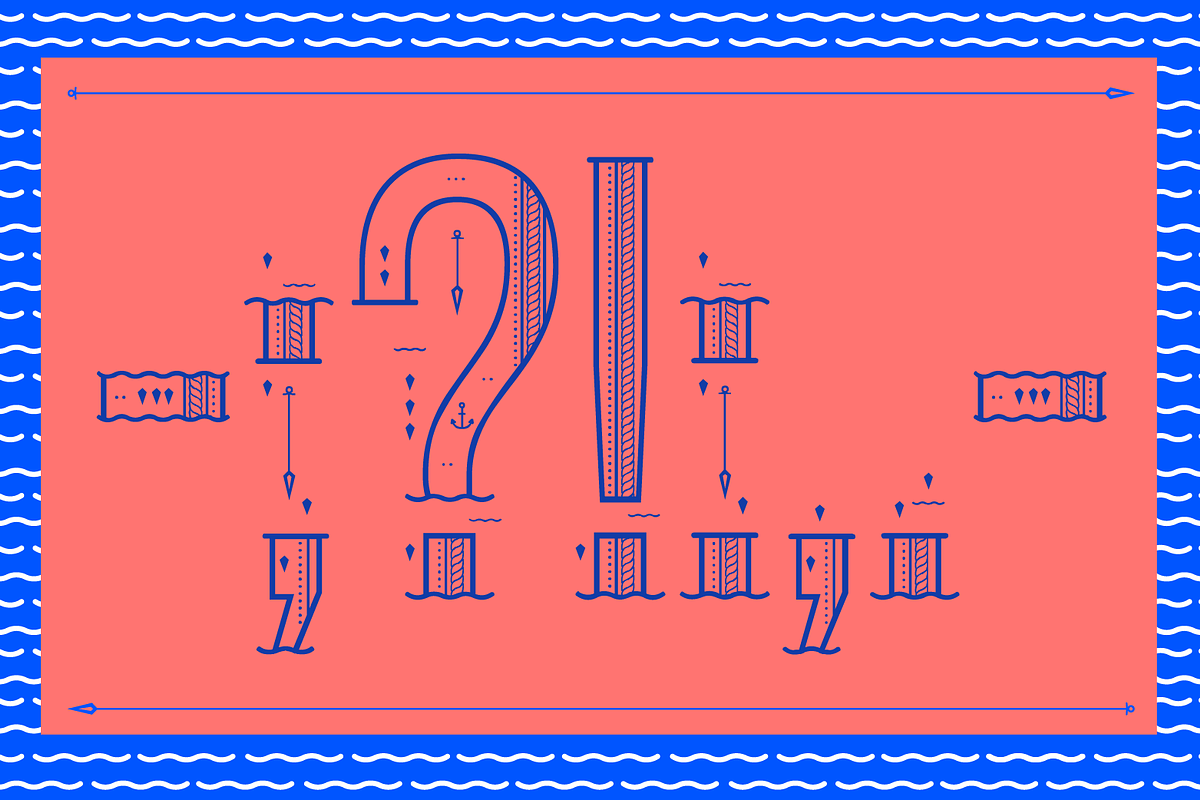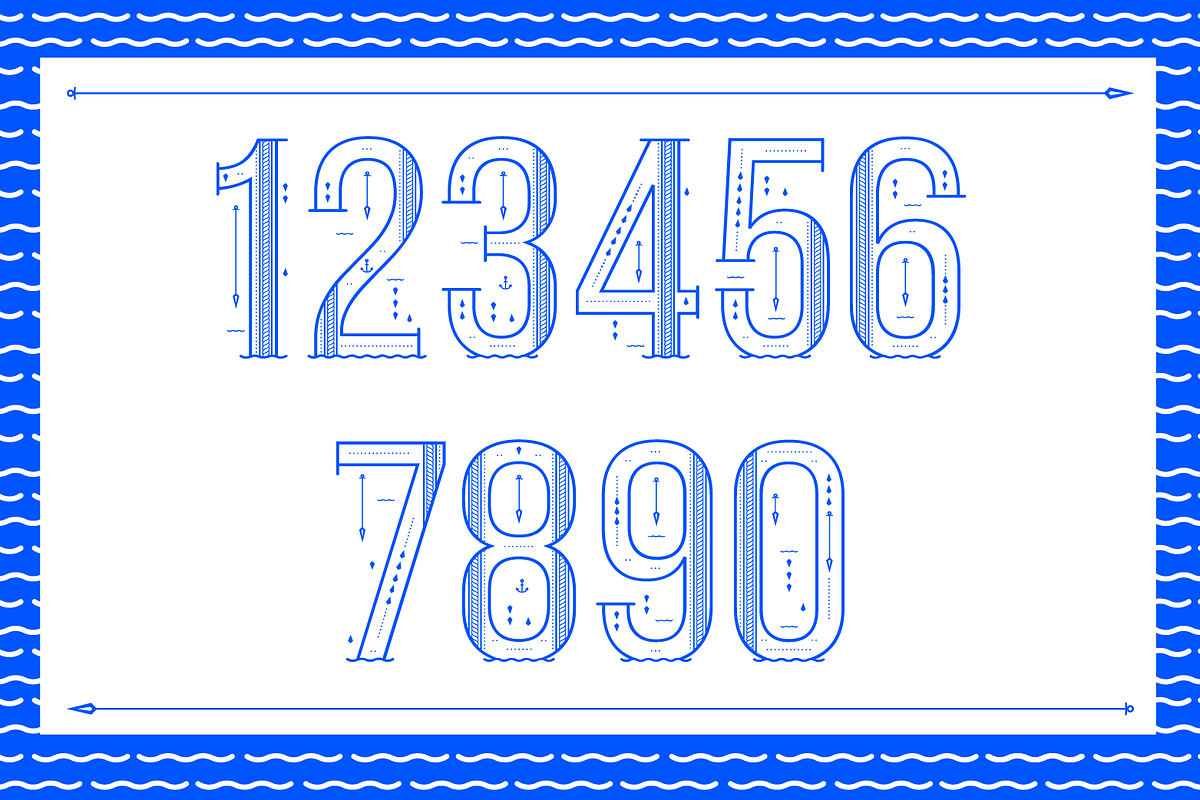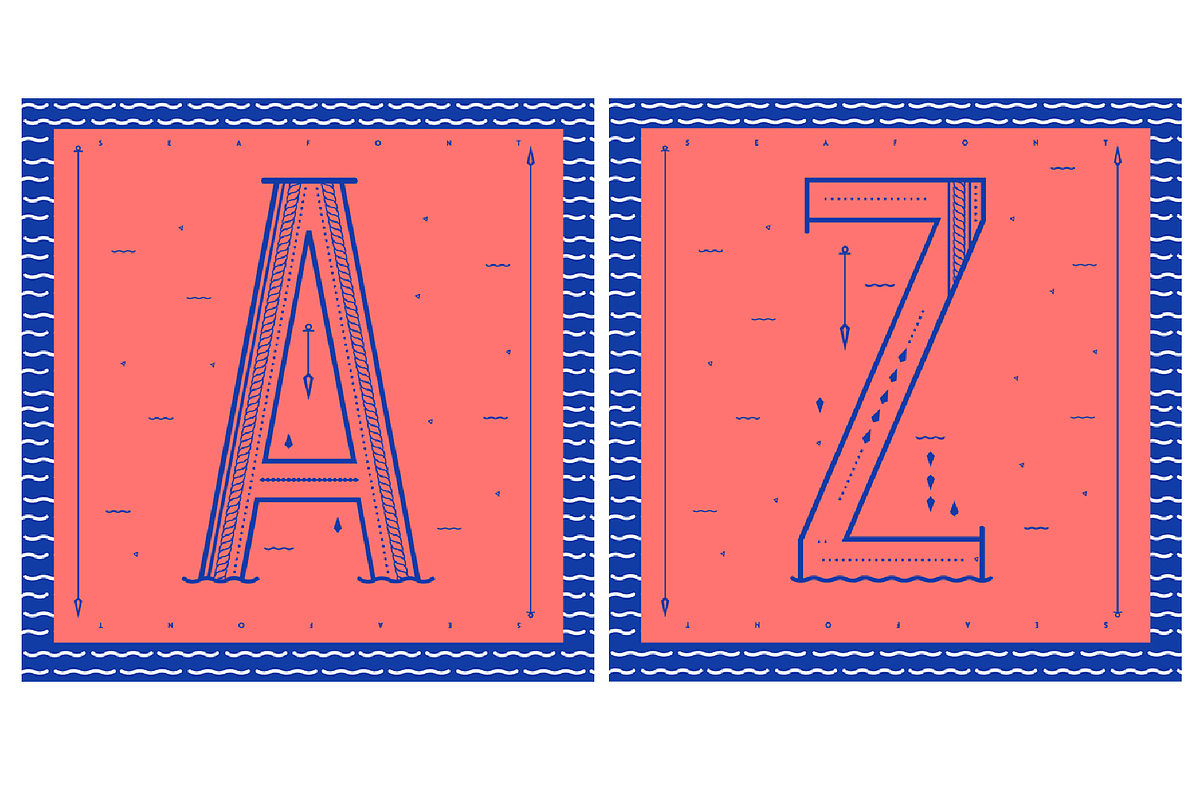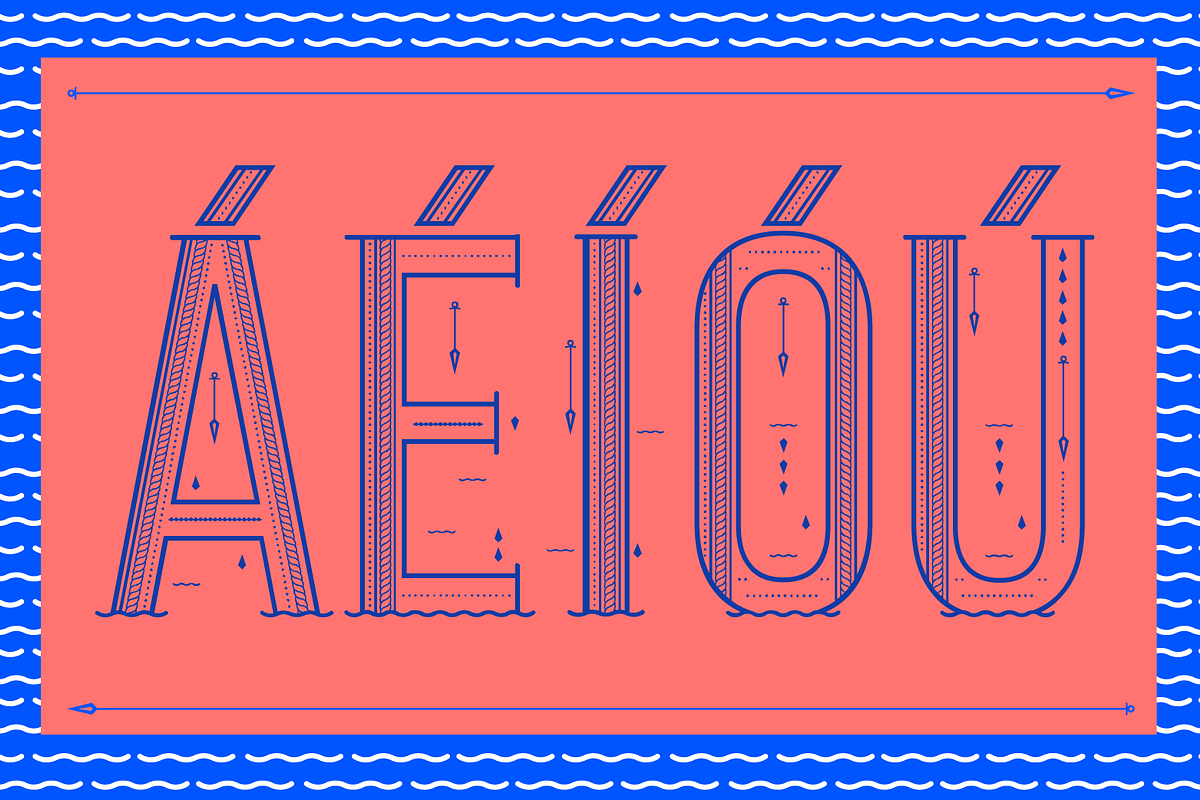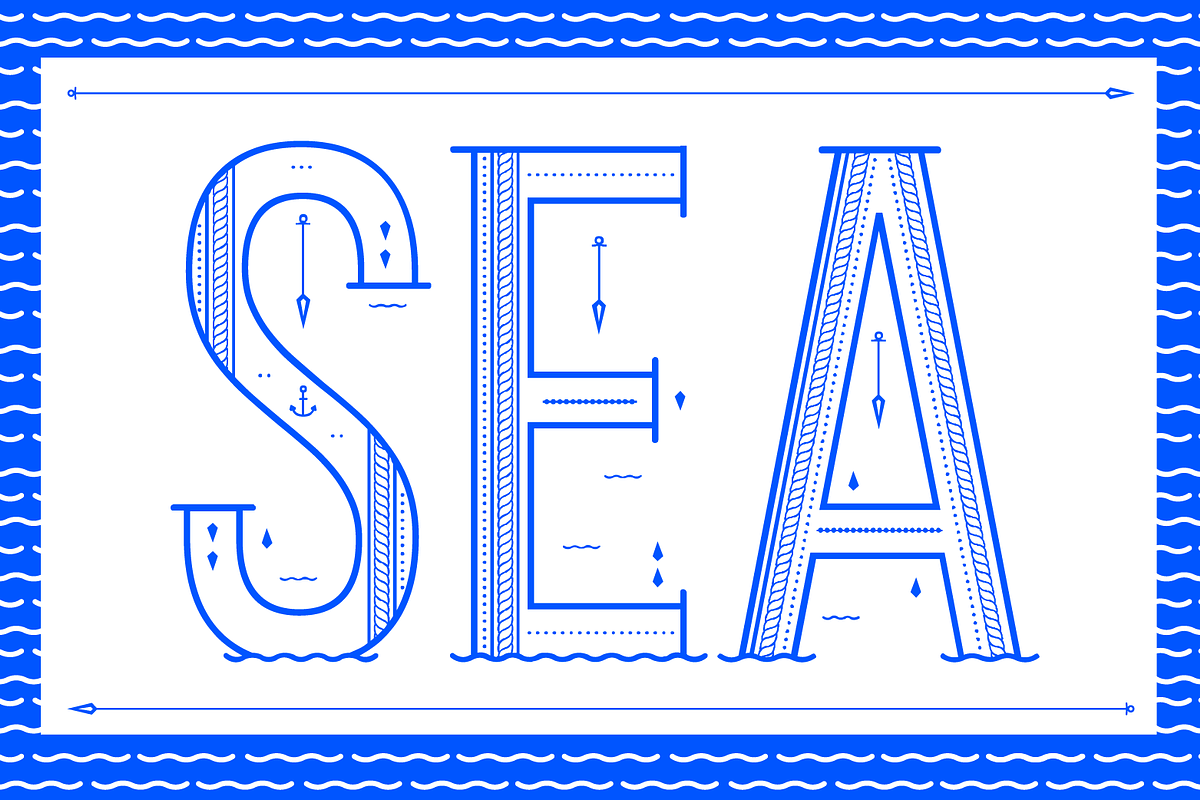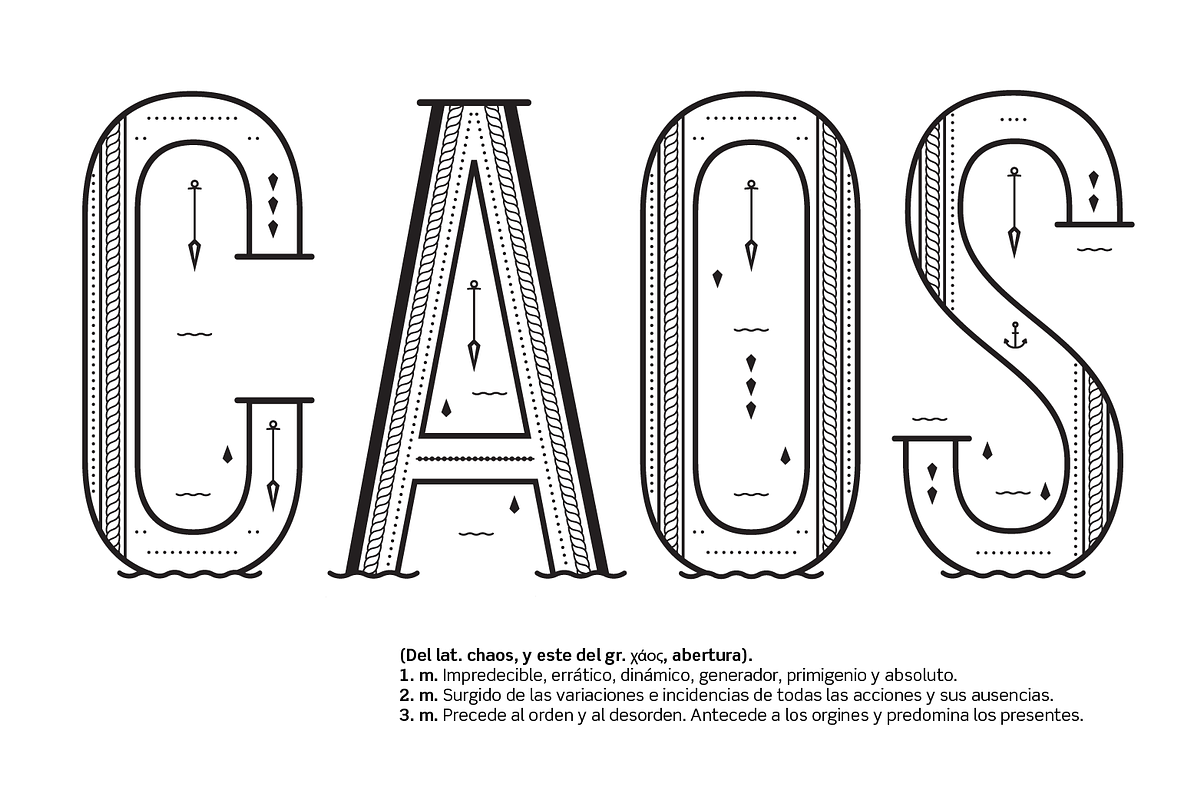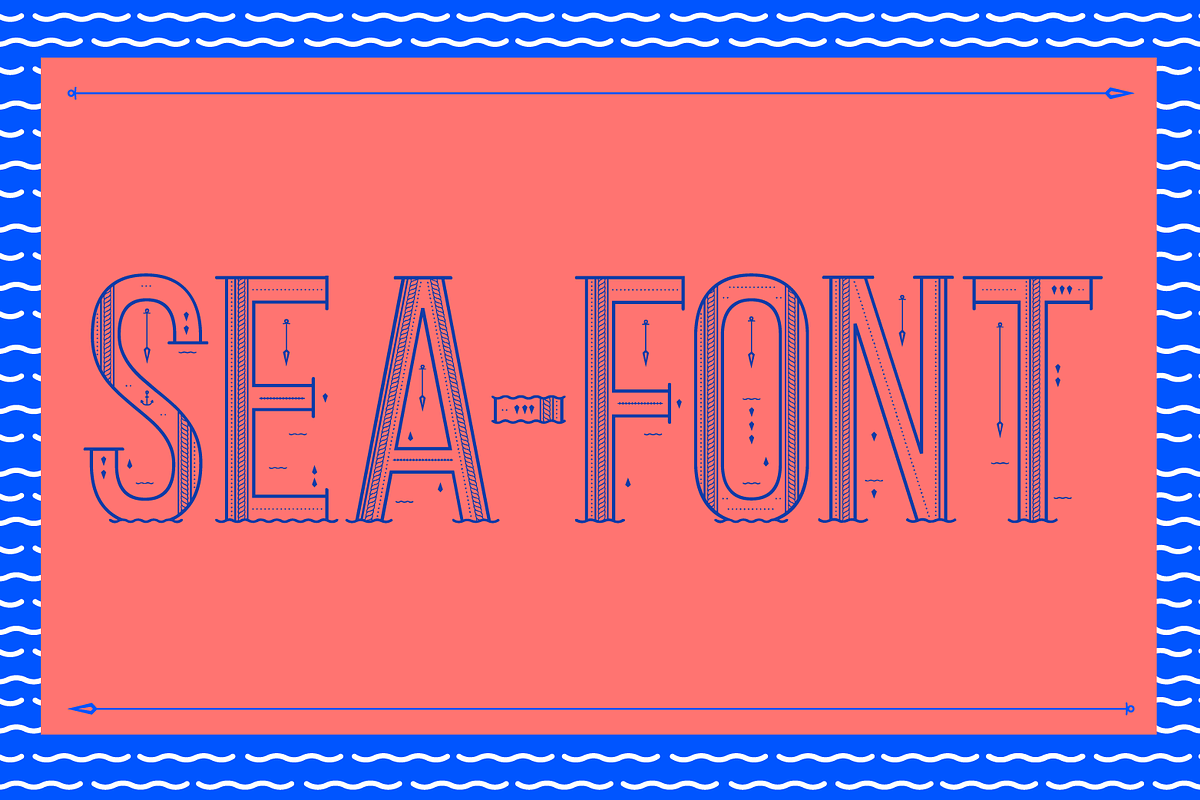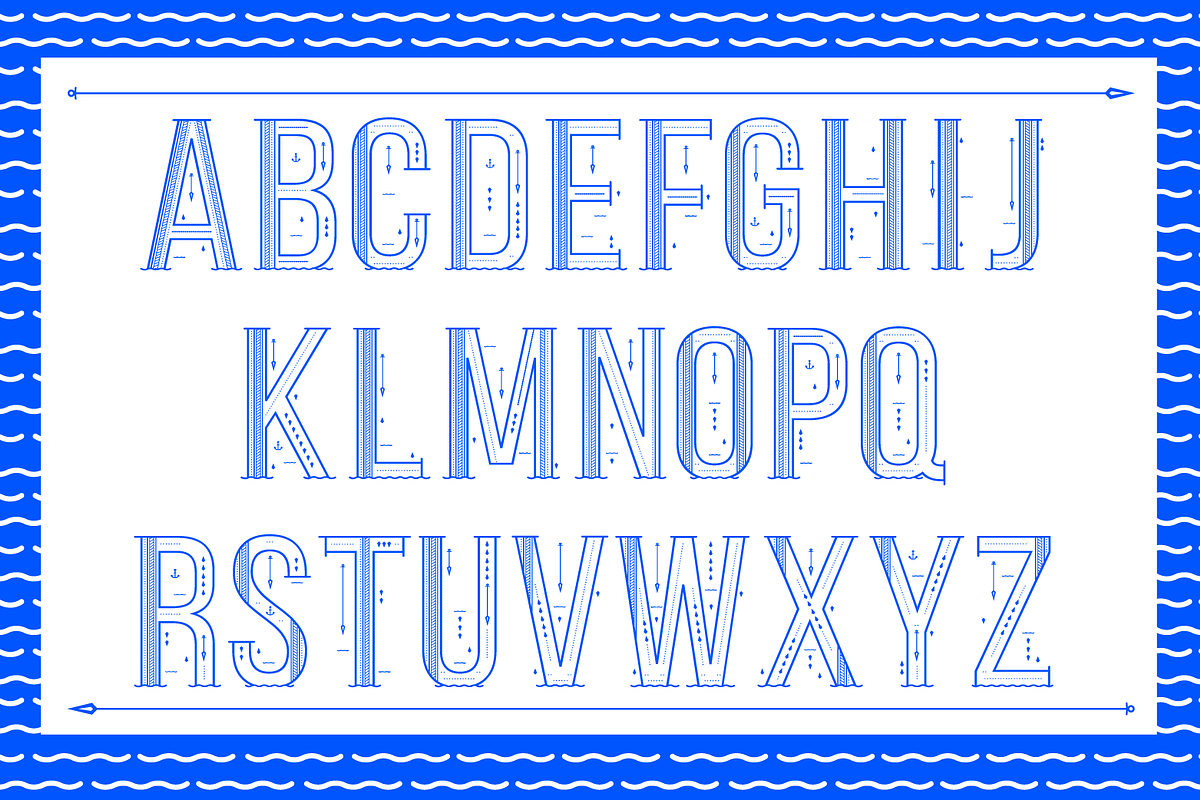
Sea Font
Beautiful typography inspired by the sea. Ideal for use on posters, cards and all kinds of publication.
Sea Font by yaisalinas fits naturally into Branding, posters, packaging, typography.